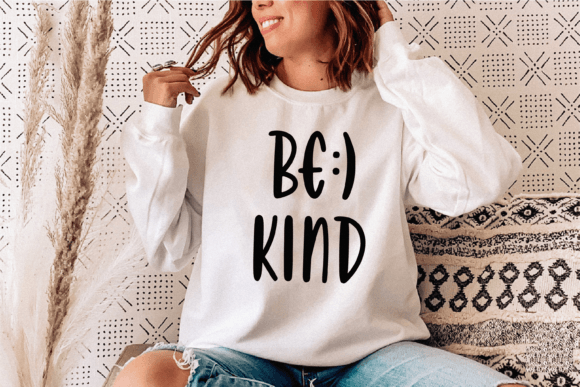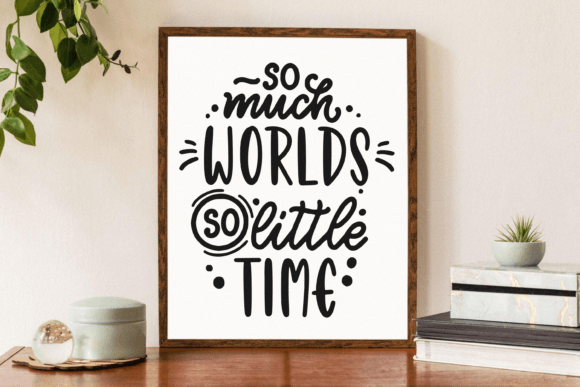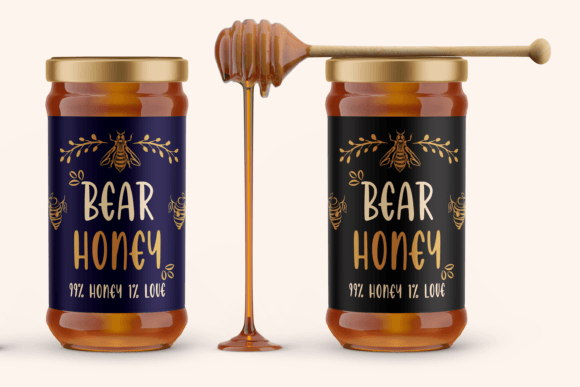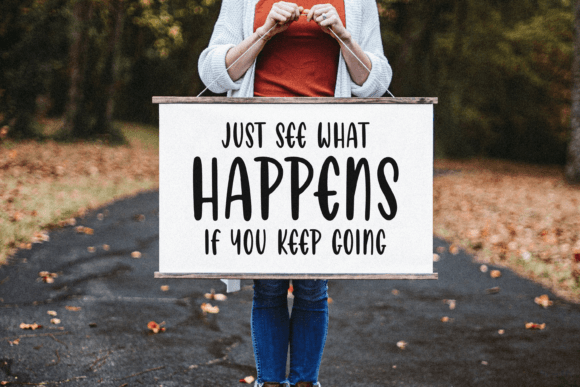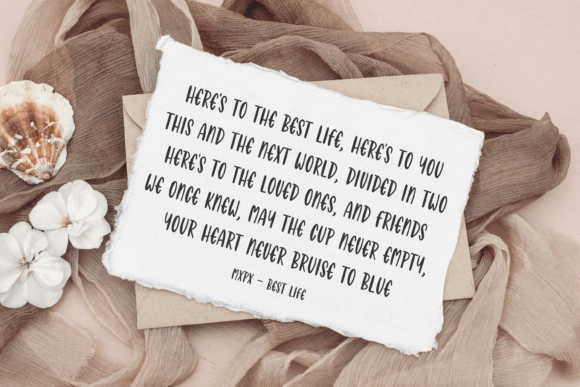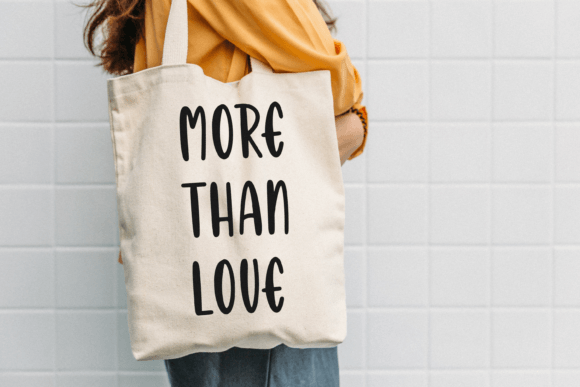
Introducing Farmshed Font: A Playful and Versatile Display Font
Are you looking for a font that can add a touch of playfulness and personality to your designs? Look no further than Farmshed Font, a charming display font with a handwritten feel. This delightful font is perfect for a wide range of creative projects, from product packaging and branding to magazines, social media, and wedding designs.
What Makes Farmshed Font So Special?
Farmshed Font boasts a unique, handwritten aesthetic that is both whimsical and inviting. Its playful curves and irregularities give it a distinctly human feel, making it perfect for designs that require a personal touch. Whether you’re looking to create eye-catching packaging, craft a memorable brand identity, or add some personality to your social media graphics, Farmshed Font is the perfect choice.
Key Features of Farmshed Font
- Playful Display Font: Farmshed Font is designed to make a statement. Its bold, playful curves are sure to grab attention and add a touch of whimsy to any design.
- Handwritten Feel: With its irregularities and imperfections, Farmshed Font has a distinctly handwritten feel that sets it apart from more traditional fonts.
- Versatile: Whether you’re working on a product packaging project, a branding campaign, or a social media graphic, Farmshed Font is the perfect choice.
- Easy to Read: Despite its playful nature, Farmshed Font is surprisingly easy to read, making it perfect for use in a wide range of applications.
Uses for Farmshed Font
Farmshed Font is an incredibly versatile font that can be used in a wide range of creative projects. Here are just a few ideas to get you started:
- Product Packaging: Add a touch of personality to your product packaging with Farmshed Font. It’s perfect for food labels, craft beer bottles, and more.
- Branding Projects: Create a memorable brand identity with Farmshed Font. Its playful curves and irregularities make it perfect for logos, business cards, and more.
- Magazines and Editorial Design: Add some personality to your magazine or editorial design with Farmshed Font. It’s perfect for headings, subheadings, and pull quotes.
- Social Media Graphics: Create eye-catching social media graphics with Farmshed Font. It’s perfect for Instagram posts, Facebook graphics, and more.
- Wedding Designs: Make your wedding stationery or decorations truly special with Farmshed Font. It’s perfect for wedding invitations, place cards, and more.
Tips for Using Farmshed Font
Here are a few tips to keep in mind when using Farmshed Font:
- Use it as a Display Font: Farmshed Font is designed to be used as a display font, so use it to grab attention and add personality to your designs.
- Pair it with a Simple Font: For body text, pair Farmshed Font with a simple, easy-to-read font to create visual interest and hierarchy.
- Experiment with Colors: Farmshed Font looks great in a wide range of colors, so don’t be afraid to experiment and find the perfect hue for your design.
In conclusion, Farmshed Font is a playful and versatile display font that is perfect for designers and crafters looking to add a touch of personality to their designs. With its handwritten feel, playful curves, and irregularities, Farmshed Font is sure to grab attention and make your designs stand out. Whether you’re working on a product packaging project, a branding campaign, or a social media graphic, Farmshed Font is the perfect choice.